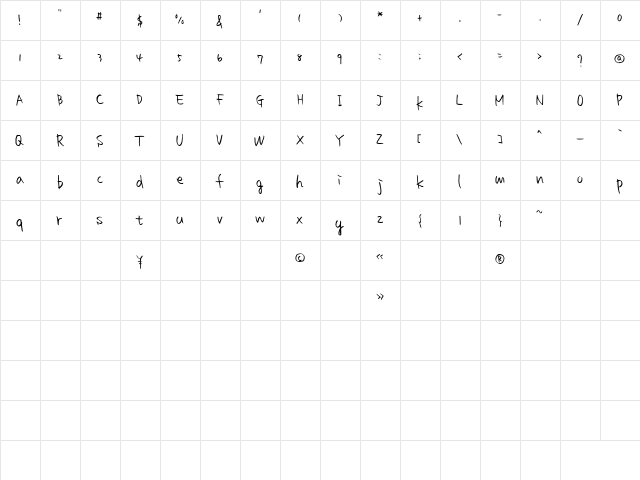
homework smart Regular
| Foundry | COLORFUL TYPHOON |
| Designer | Futaba |
Design Context for homework smart Typeface
homework smart is a composed and adaptable typeface that performs quietly and consistently across a wide range of design contexts.